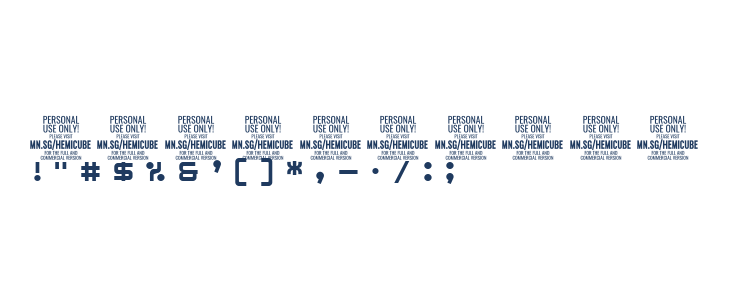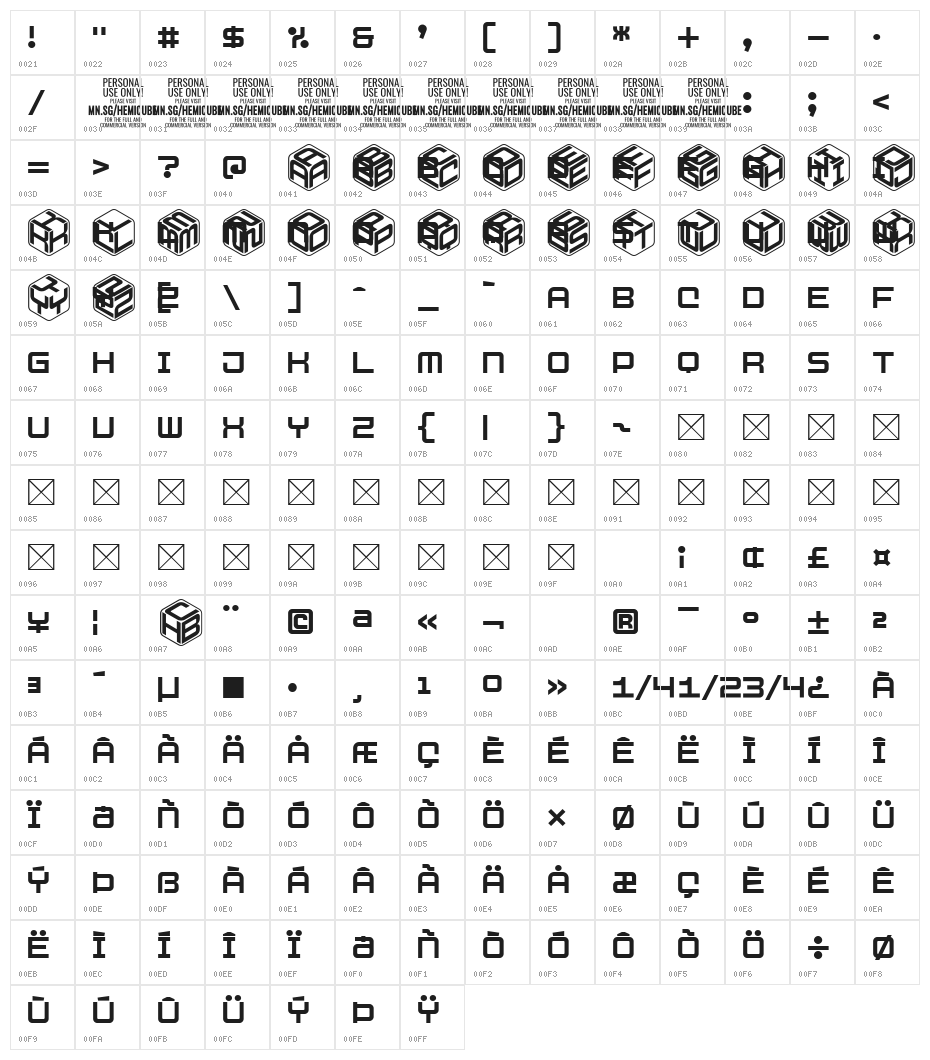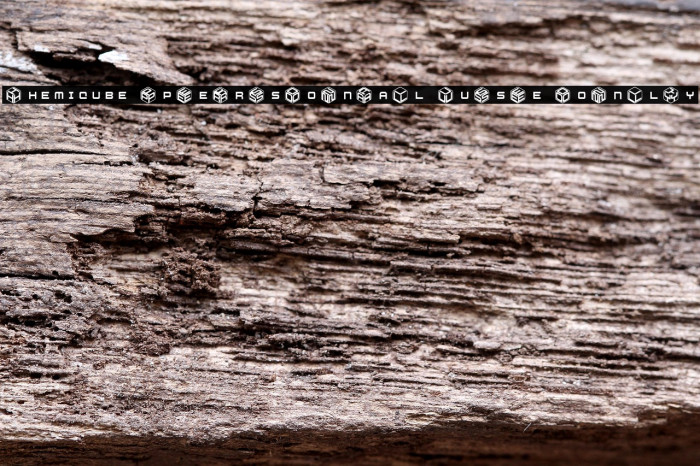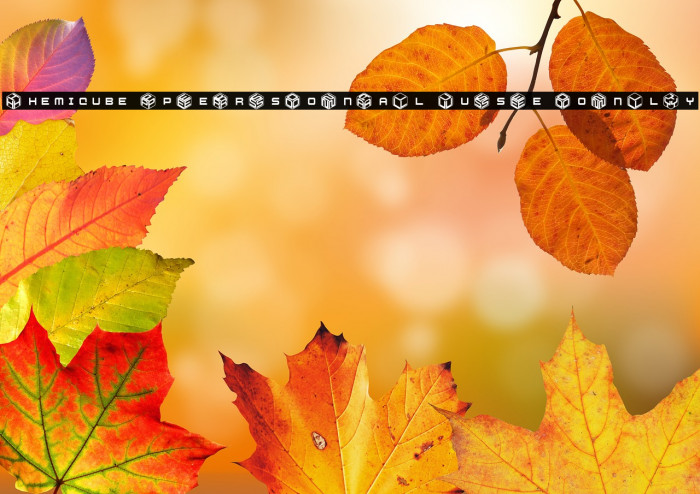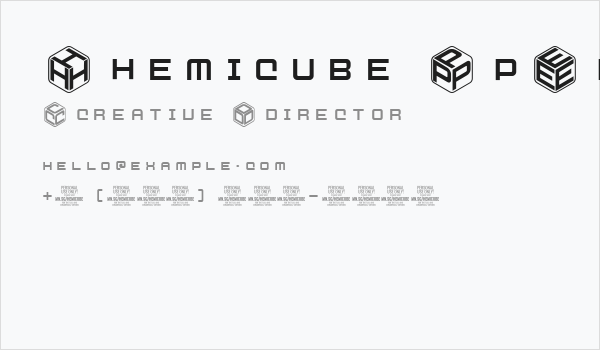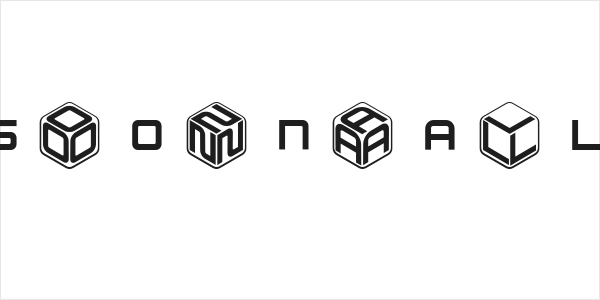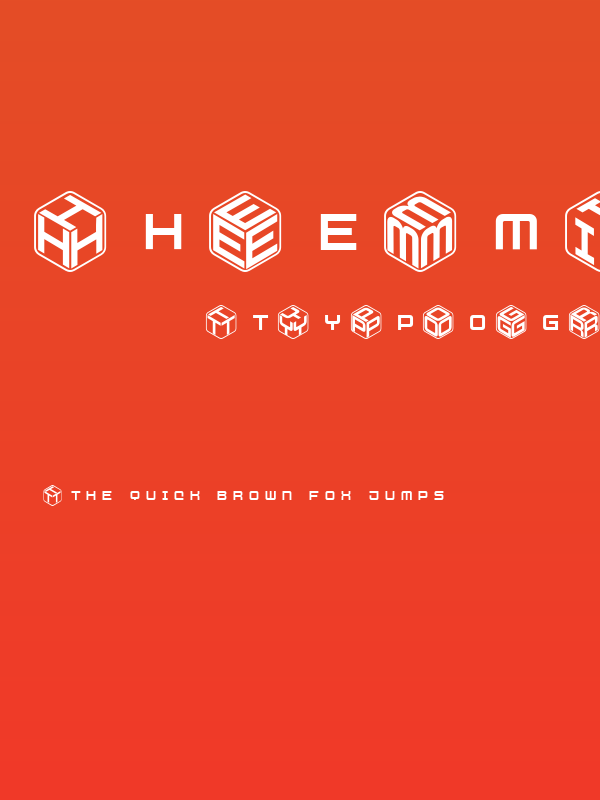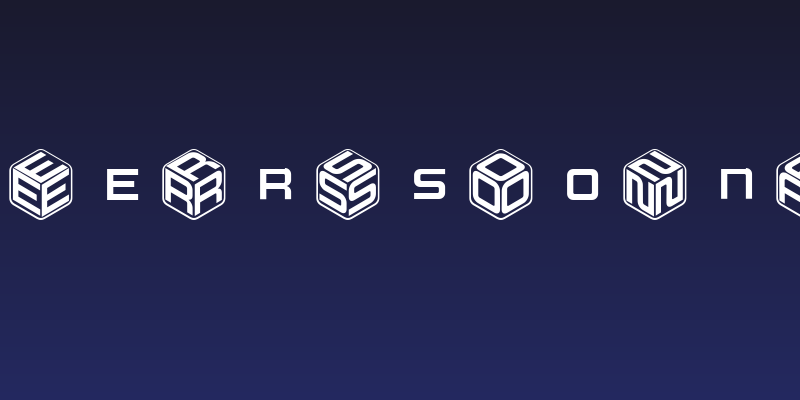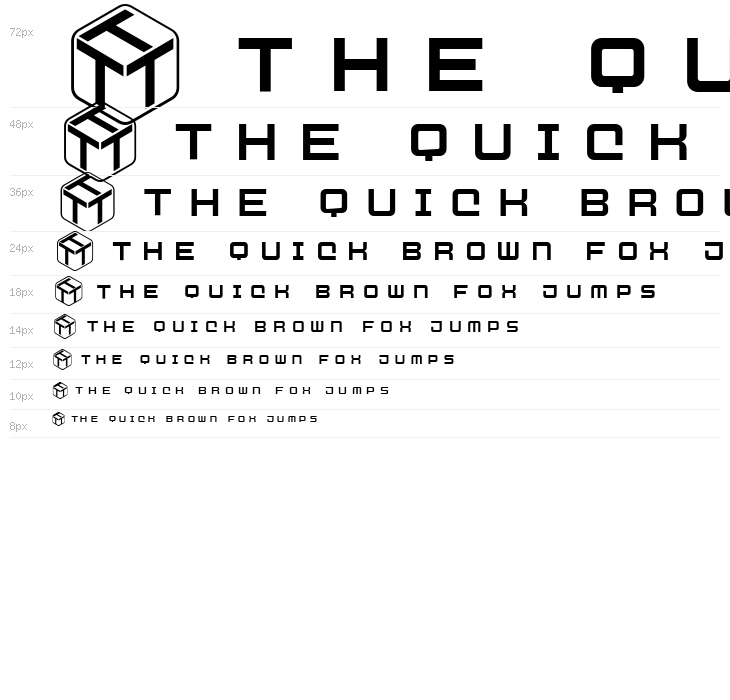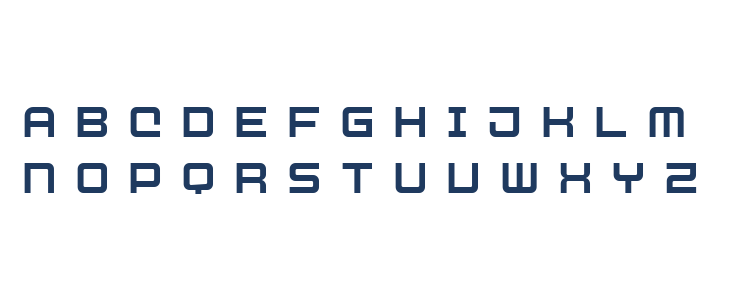
Hemicube PERSONAL USE ONLY Font
Hemicube PERSONAL USE ONLY Description
This font features a unique, geometric design with a futuristic and modern aesthetic. The uppercase letters are bold and structured, resembling three-dimensional cubes, which gives them a distinct and eye-catching appearance. The lowercase letters maintain a consistent style, with a slightly more condensed form, ensuring readability while preserving the geometric theme. The numbers and special characters are designed to match the overall style, providing a cohesive look across all characters. This font is ideal for projects that require a modern, tech-inspired feel.
| Proposed Projects | Ideal for tech branding, video game titles, futuristic posters, and digital media. |